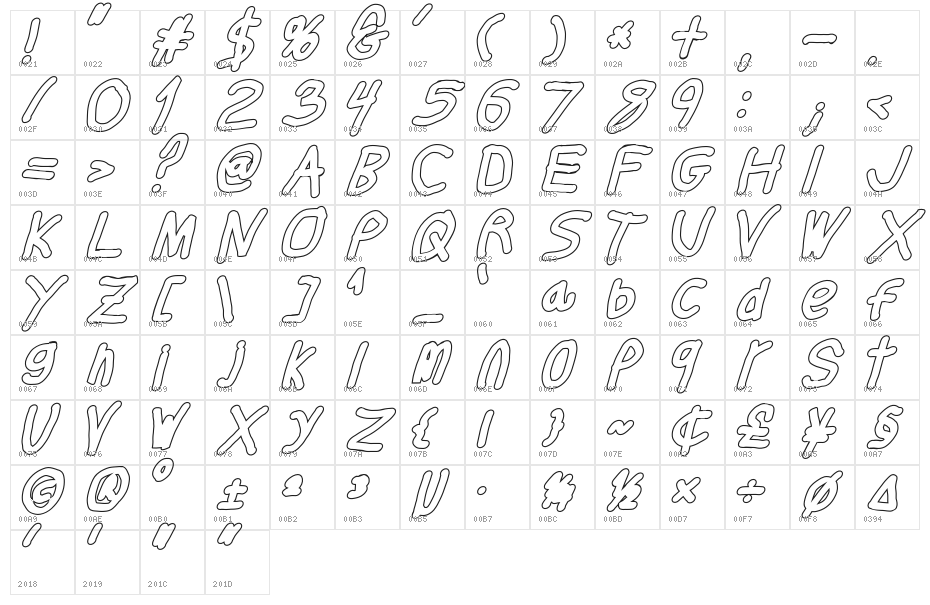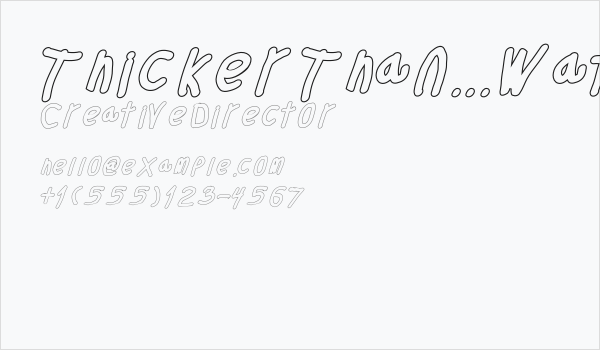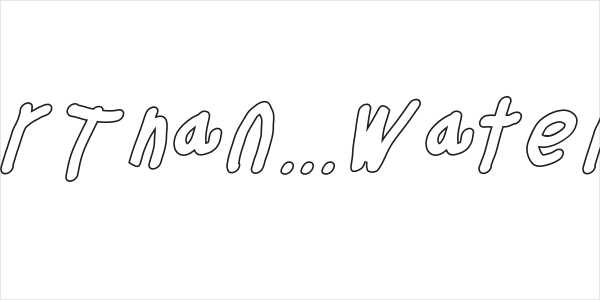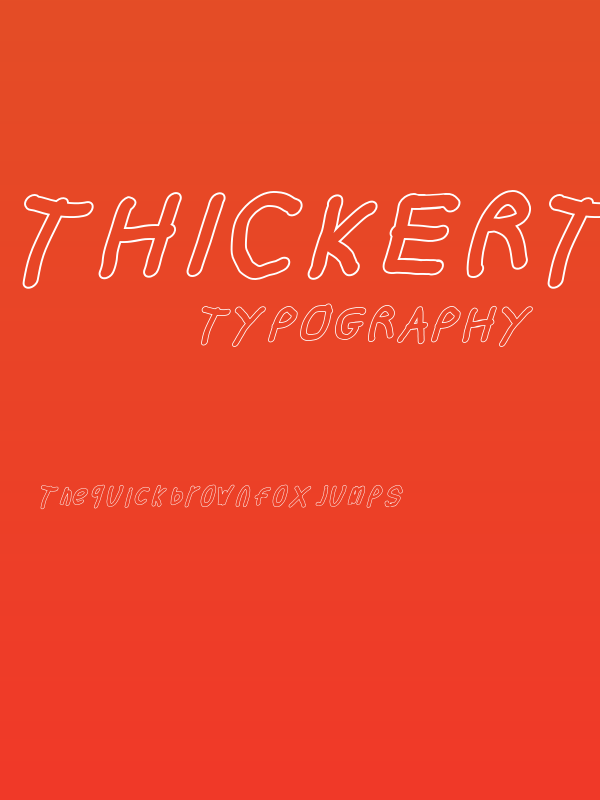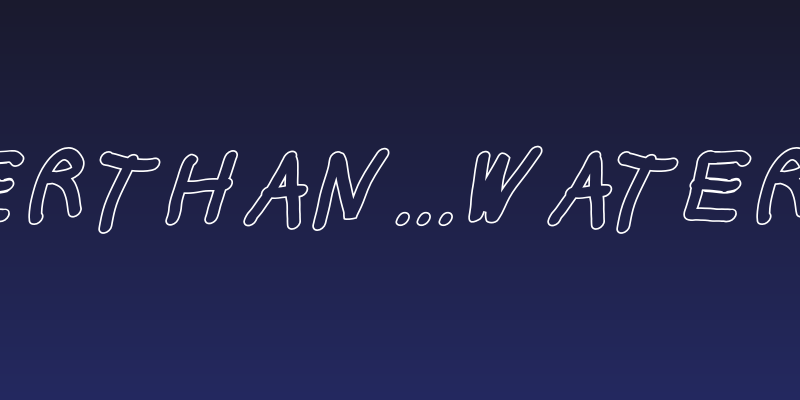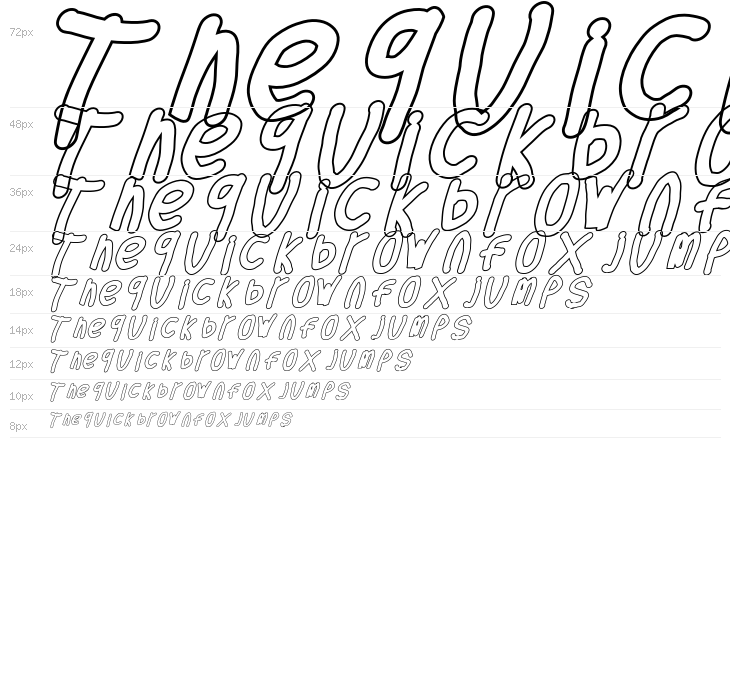
Thicker Than... Water Italic Font
Thicker Than... Water Italic Description
This font features a playful and dynamic style with a hand-drawn appearance. The characters are outlined, giving them a hollow look that adds a unique dimension. The letters are slightly slanted, emphasizing an italicized form, and they exhibit a casual, informal vibe. The strokes are uneven, contributing to a whimsical and artistic feel. This font is particularly suitable for creative projects where a lighthearted and approachable tone is desired. The numbers and special characters maintain the same playful style, ensuring consistency across all elements.
| Proposed Projects | Ideal for children's books, greeting cards, playful branding, and artistic posters. |